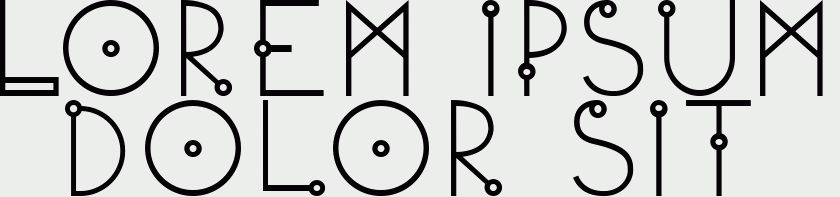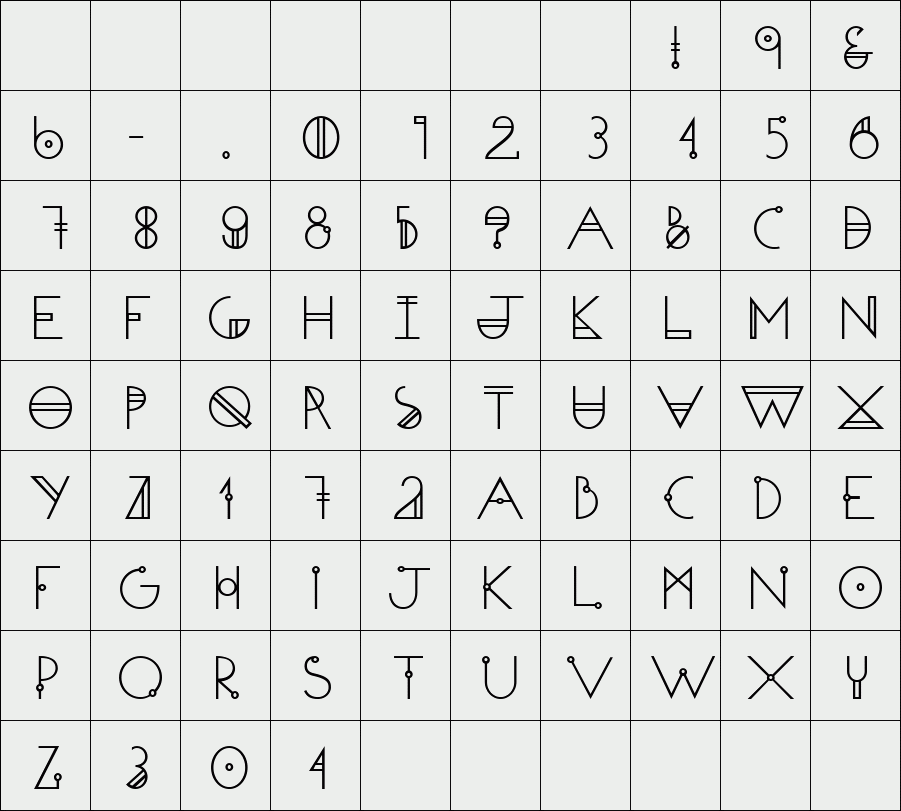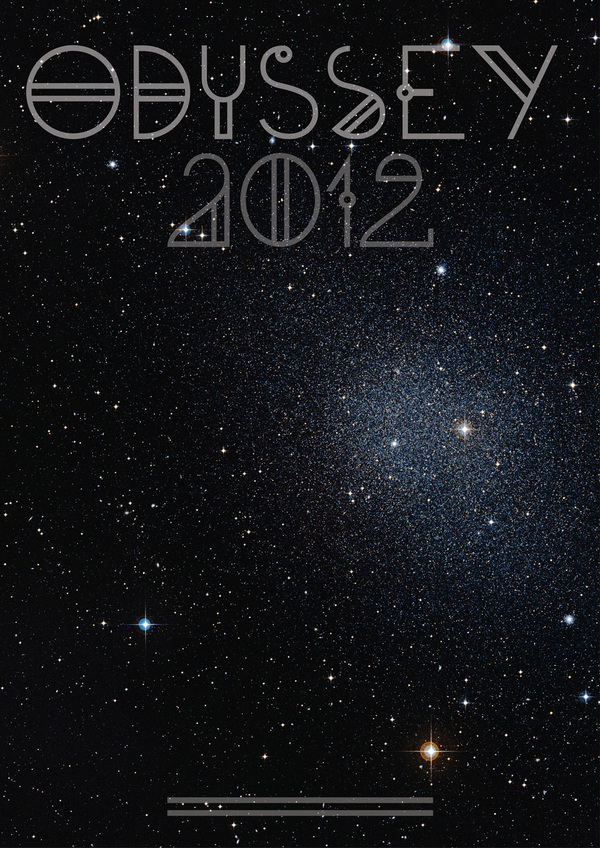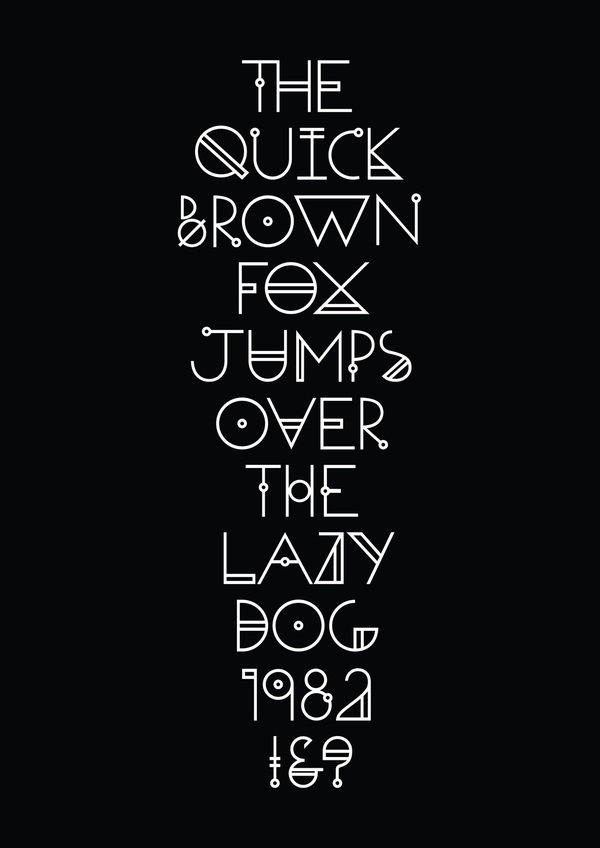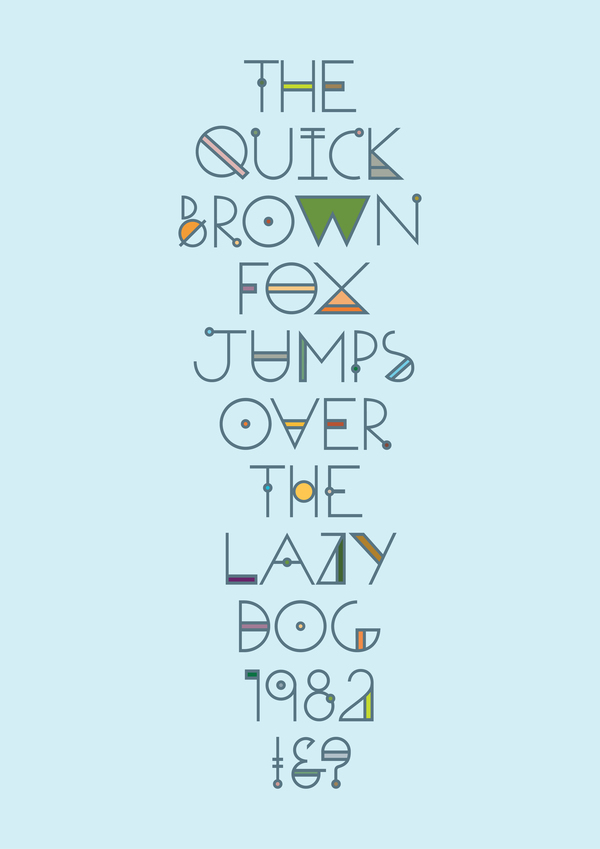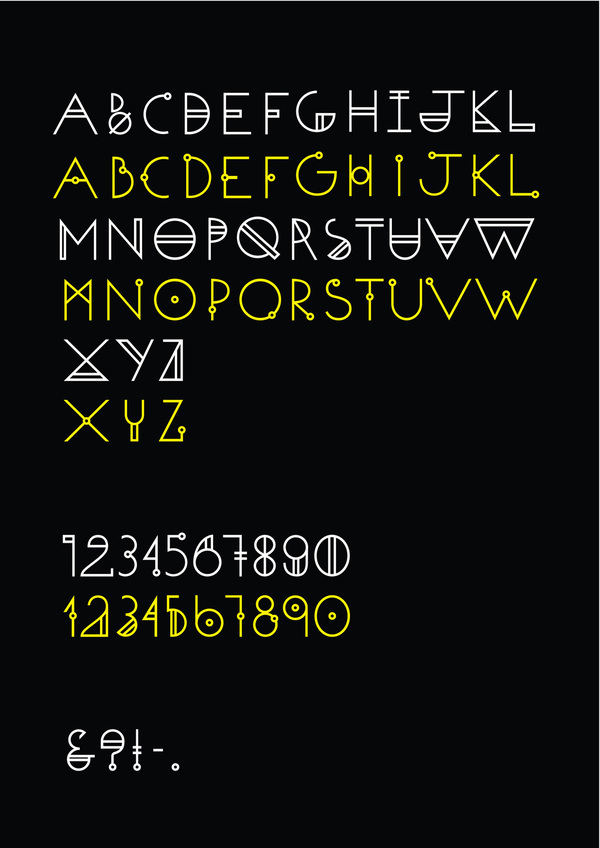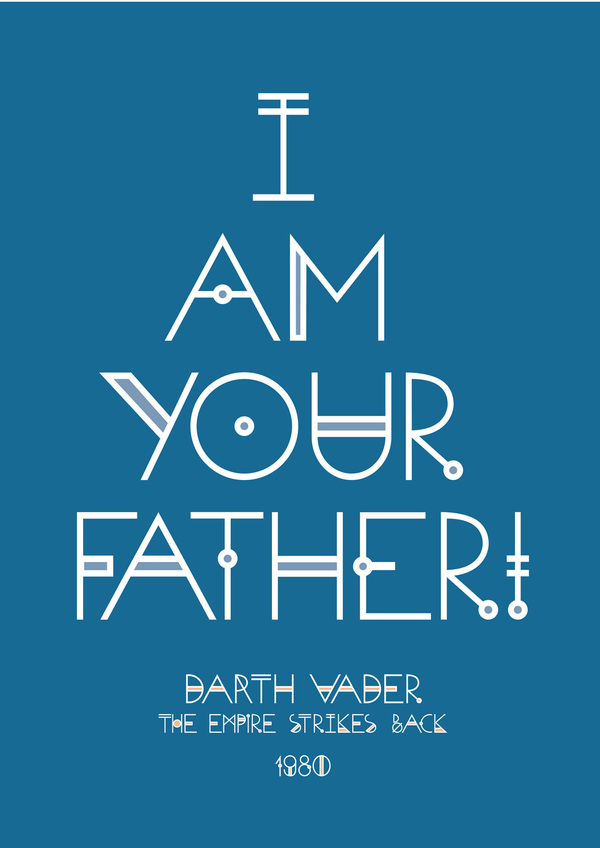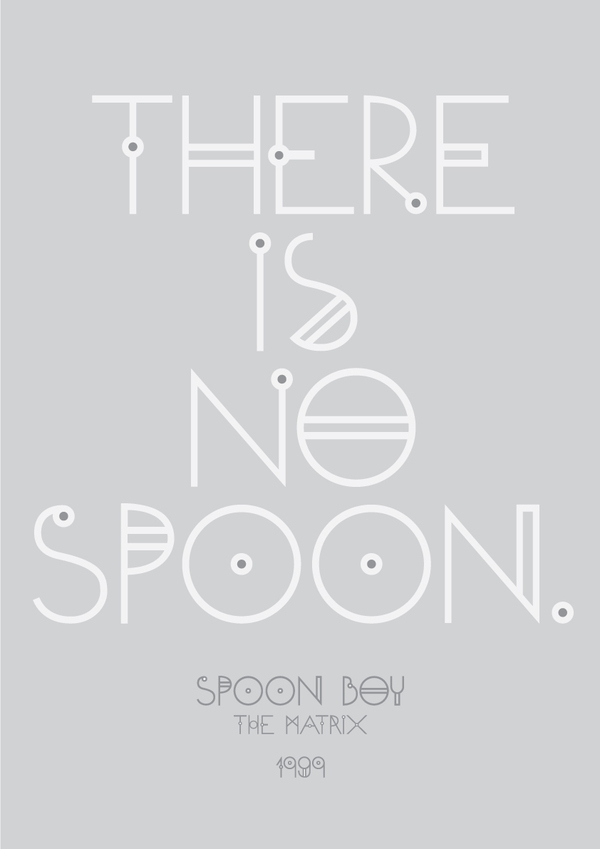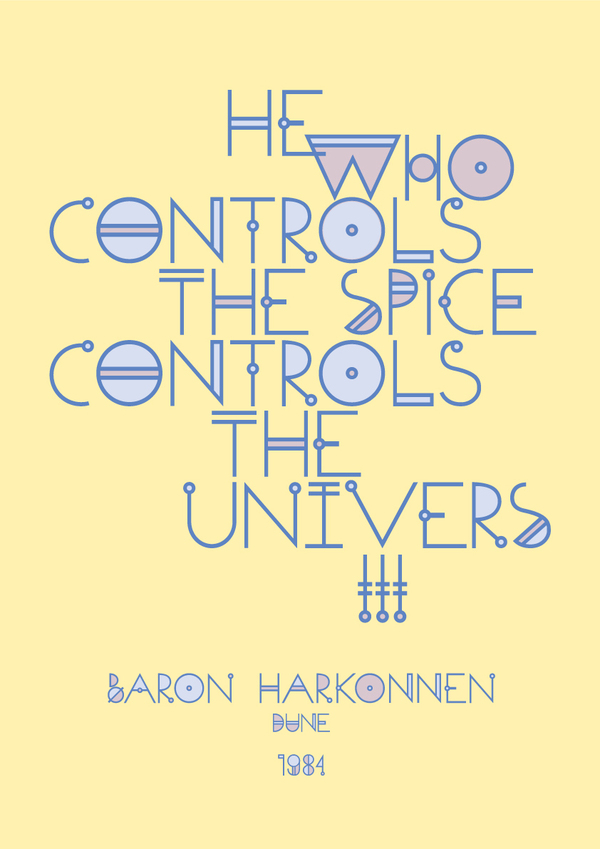
Odyssey
This is a custom, display typeface that can be used to create expressive, futuristic logos & type treatments. The shapes I used where inspired by old SF movies. Each letter and number has two versions to add some diversity to your projects. The idea was to make a simple font with a bit of craziness!
Designer: Konrad Bednarski